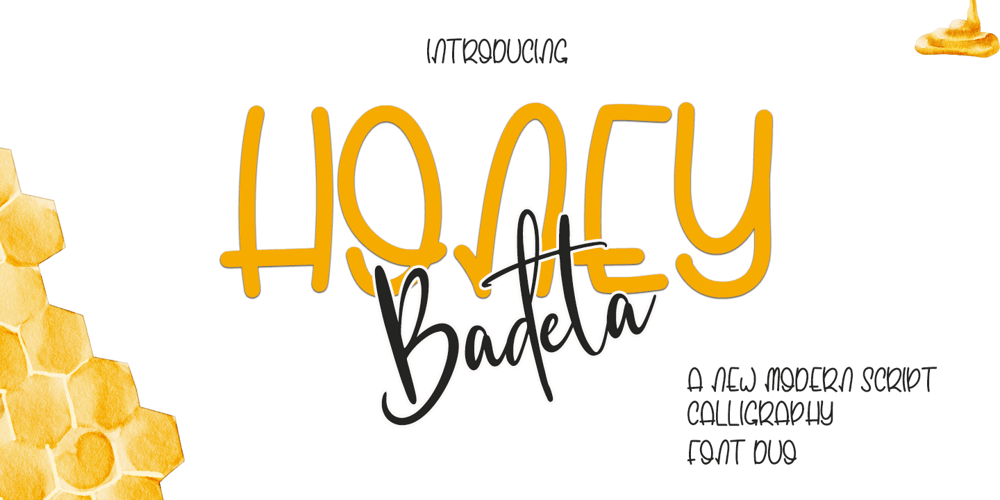
Badeta Font Family was designed by Muhammad Zaini and published by Cocodesign. Badeta contains 3 styles and family package options. Honey badeta font duo Script is a modern calligraphy design, including Regular. This font is casual and beautiful with swash. Can be used for various purposes. such as logos, product packaging, wedding invitations, branding, headlines, signage, labels, signatures, book covers, posters, quotes, and more.